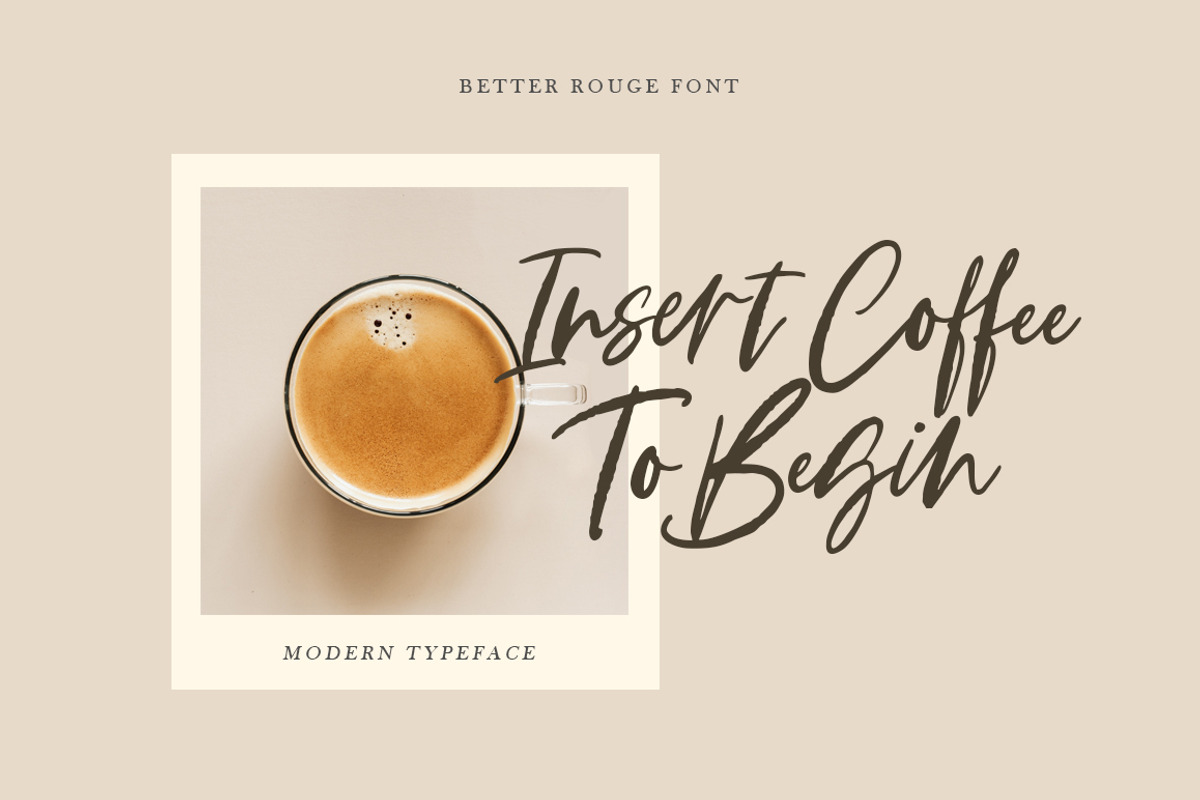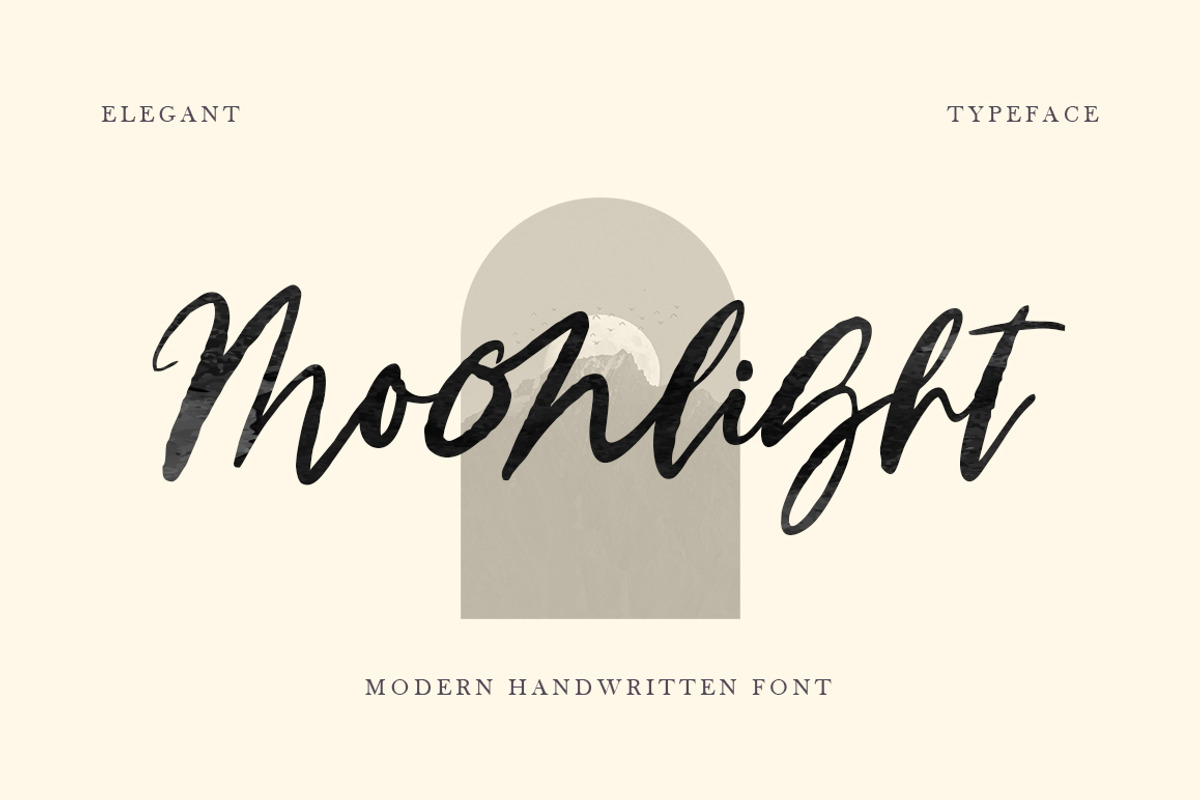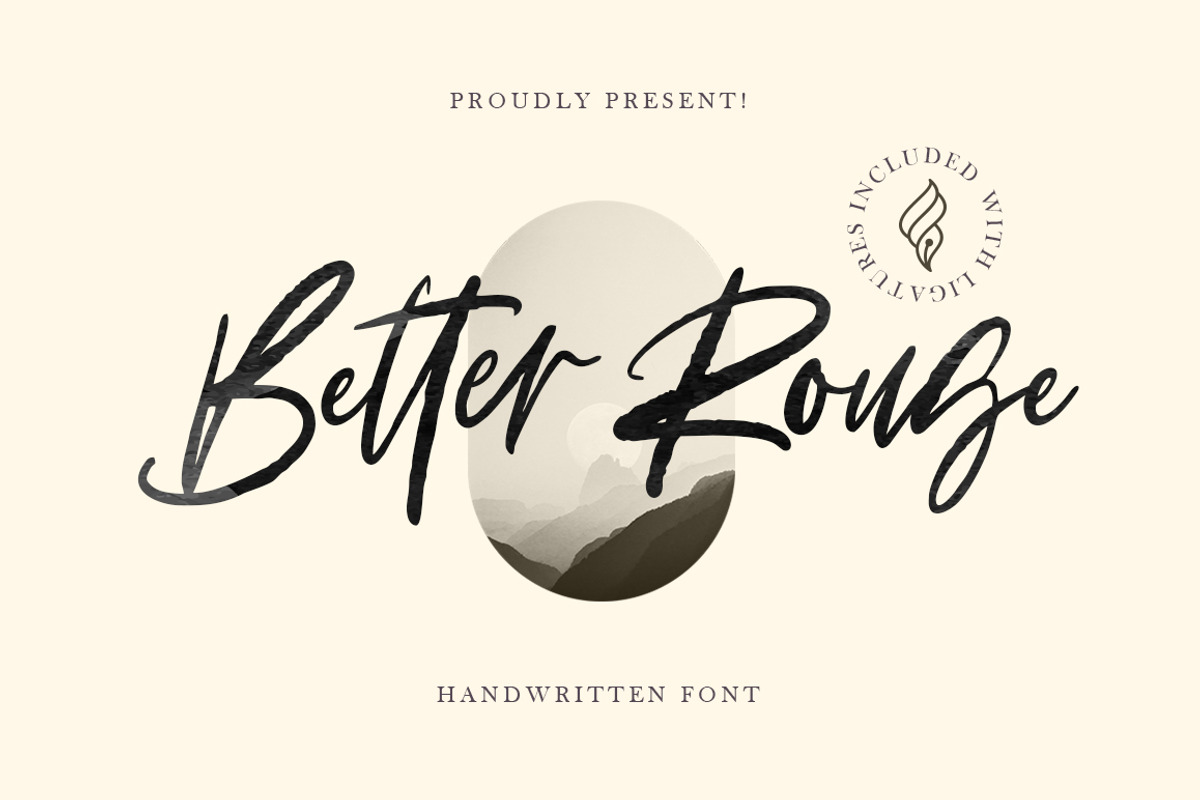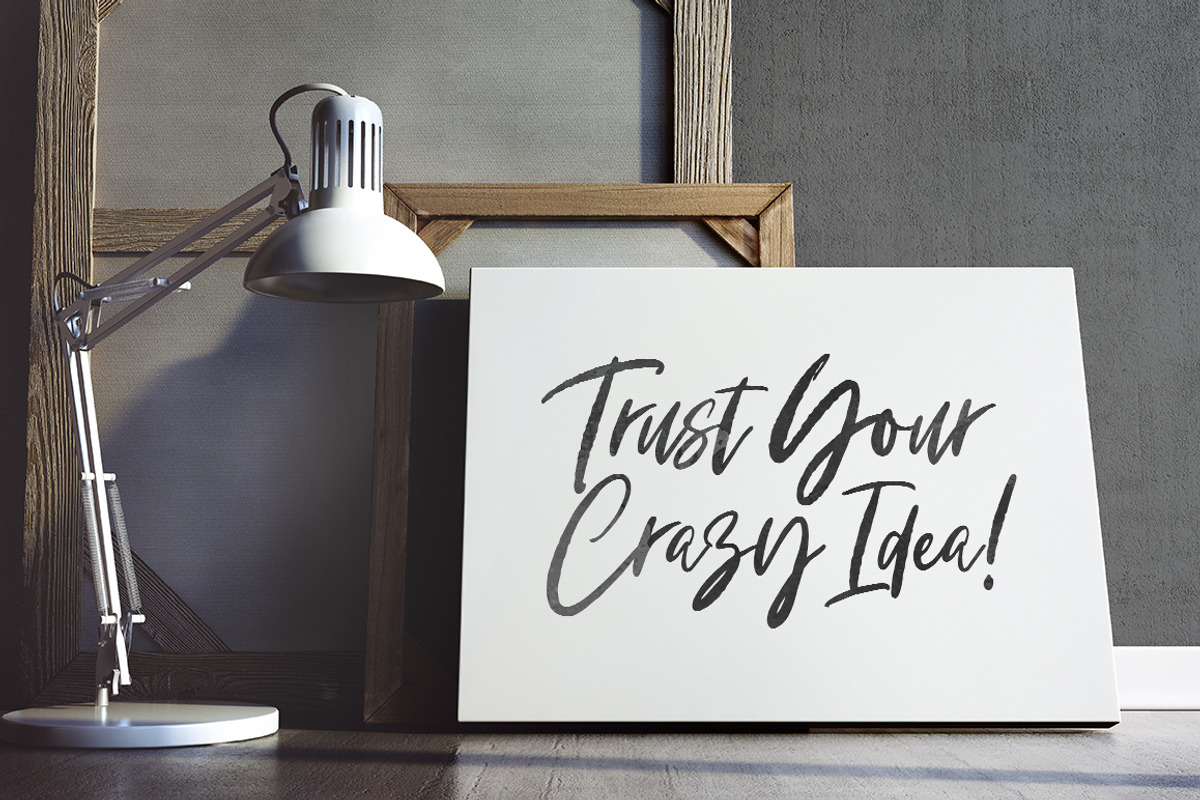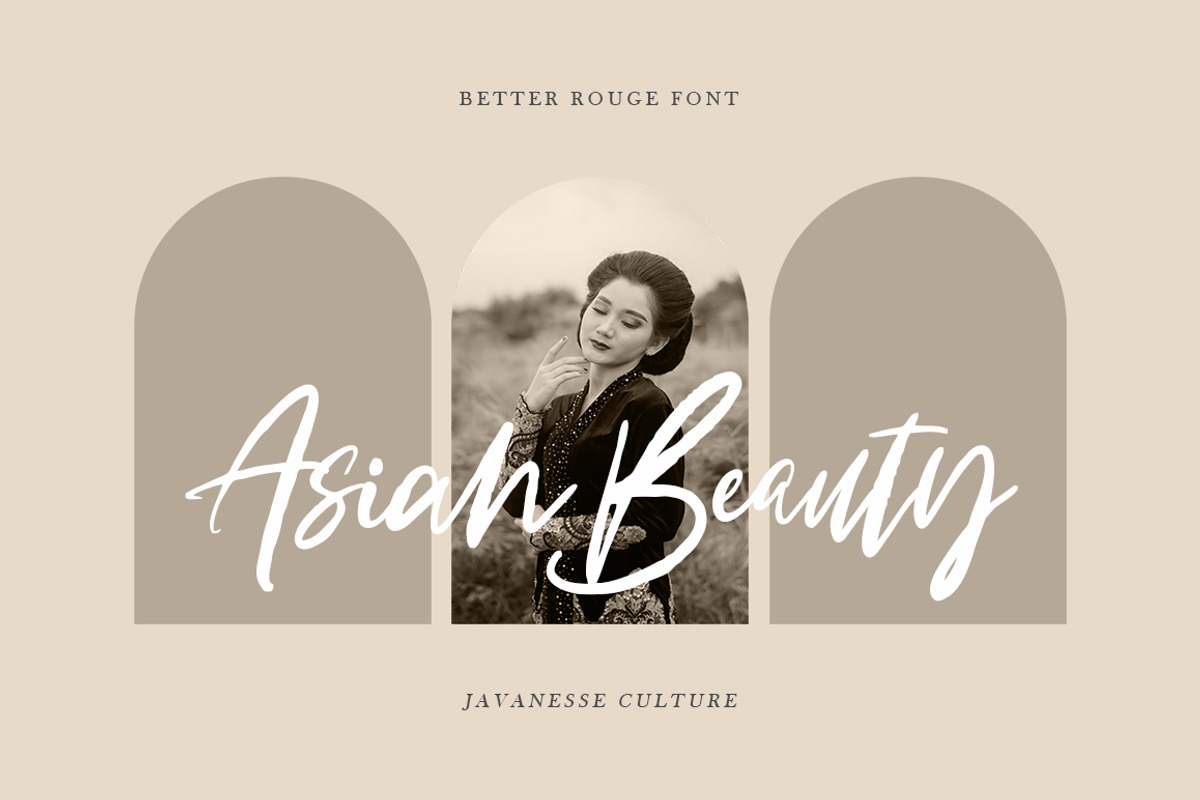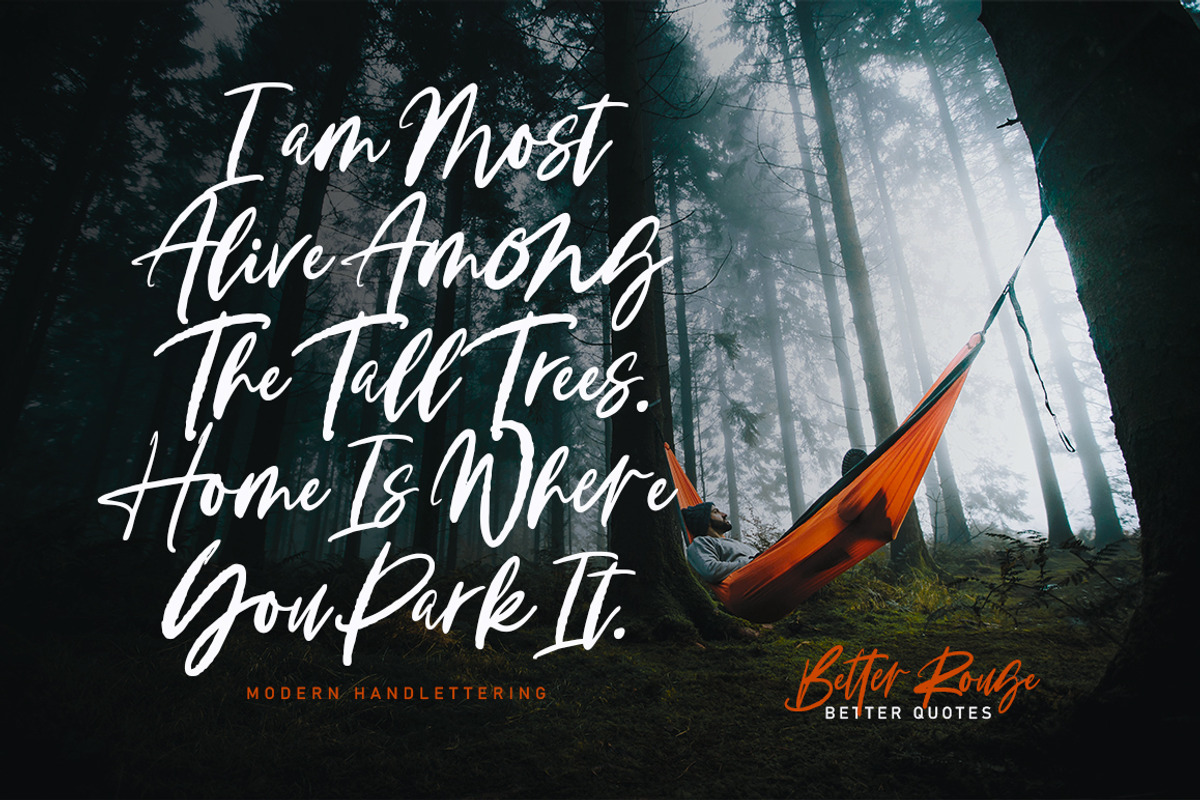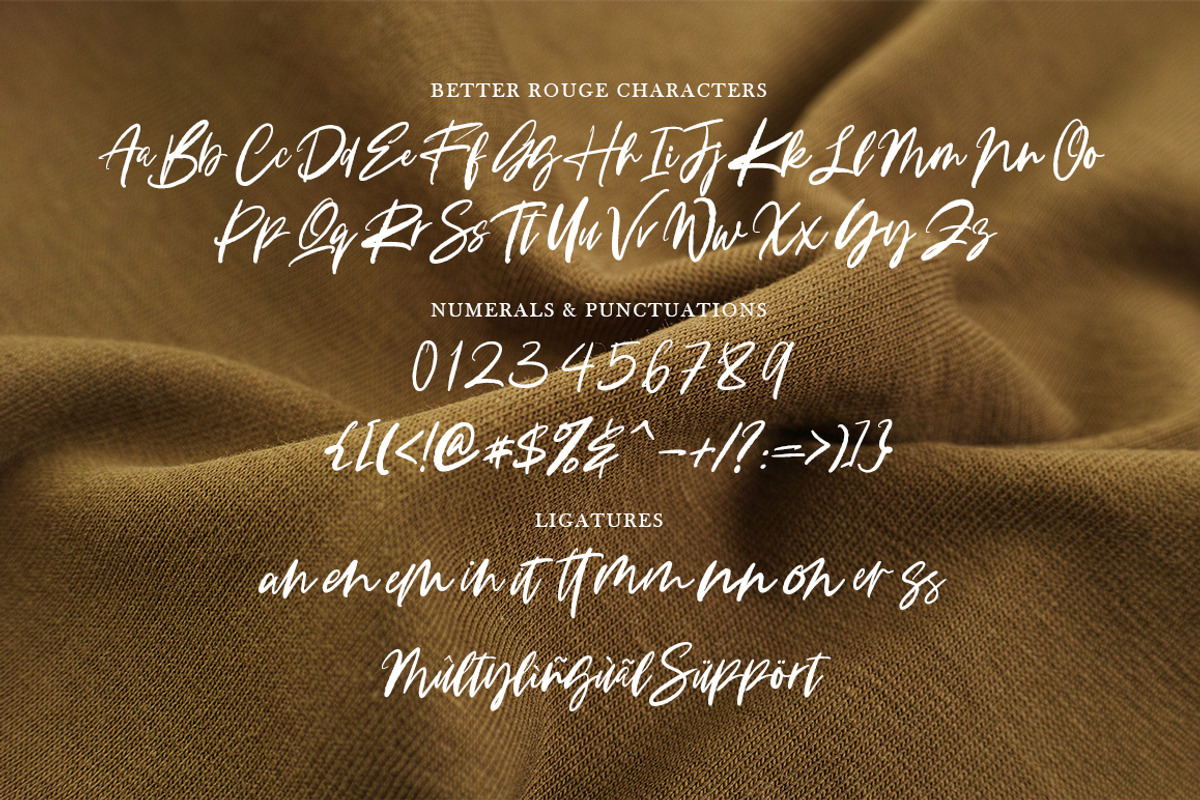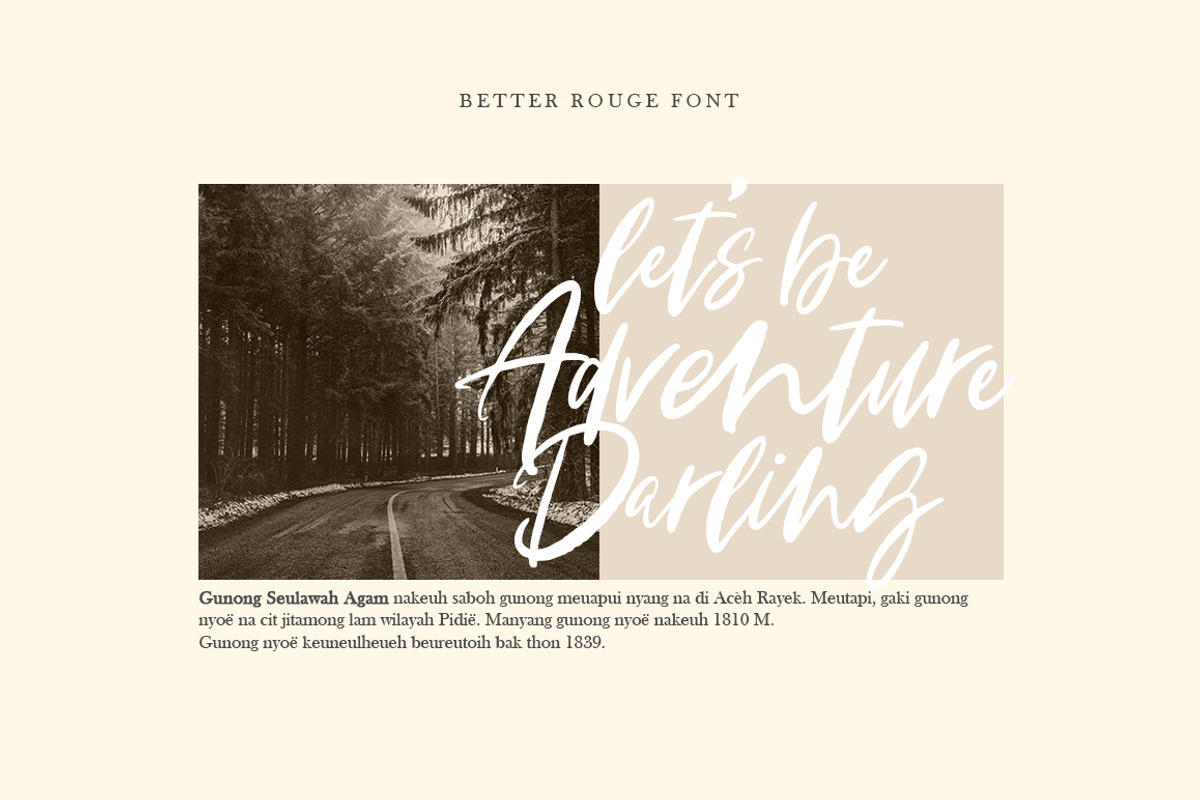
Better Rouge Brush
Better Rouge is handwritten stylish copperplate calligraphy fonts, combines from copperplate to contemporary typeface with a dancing baseline, classic and elegant touch. Can be used for various purposes. such as headings, signature, logos, wedding invitation, t-shirt, letterhead, signage, lable, news, posters, badges etc.
- All Uppercase and Lowercase
- Supported Languages